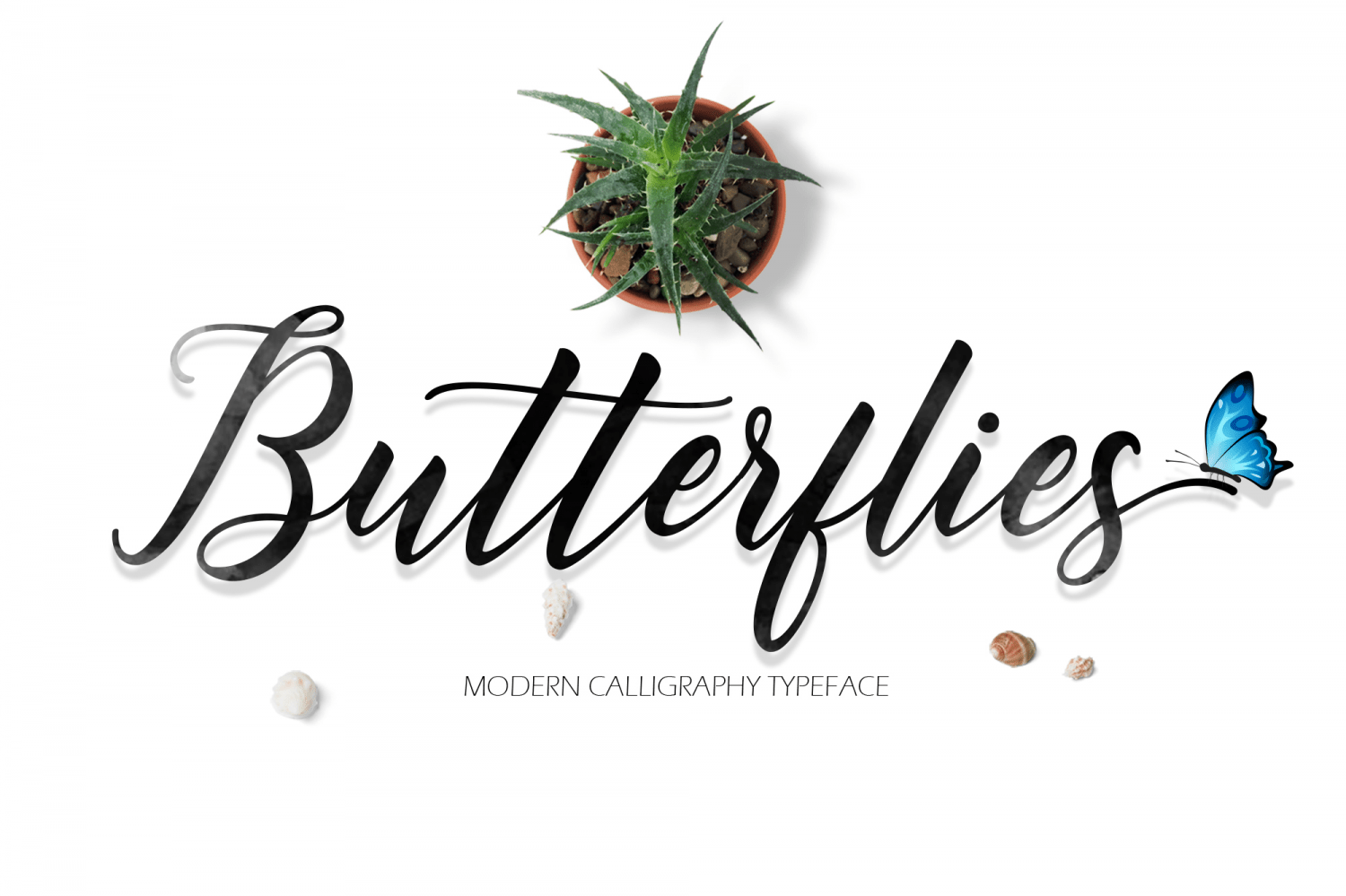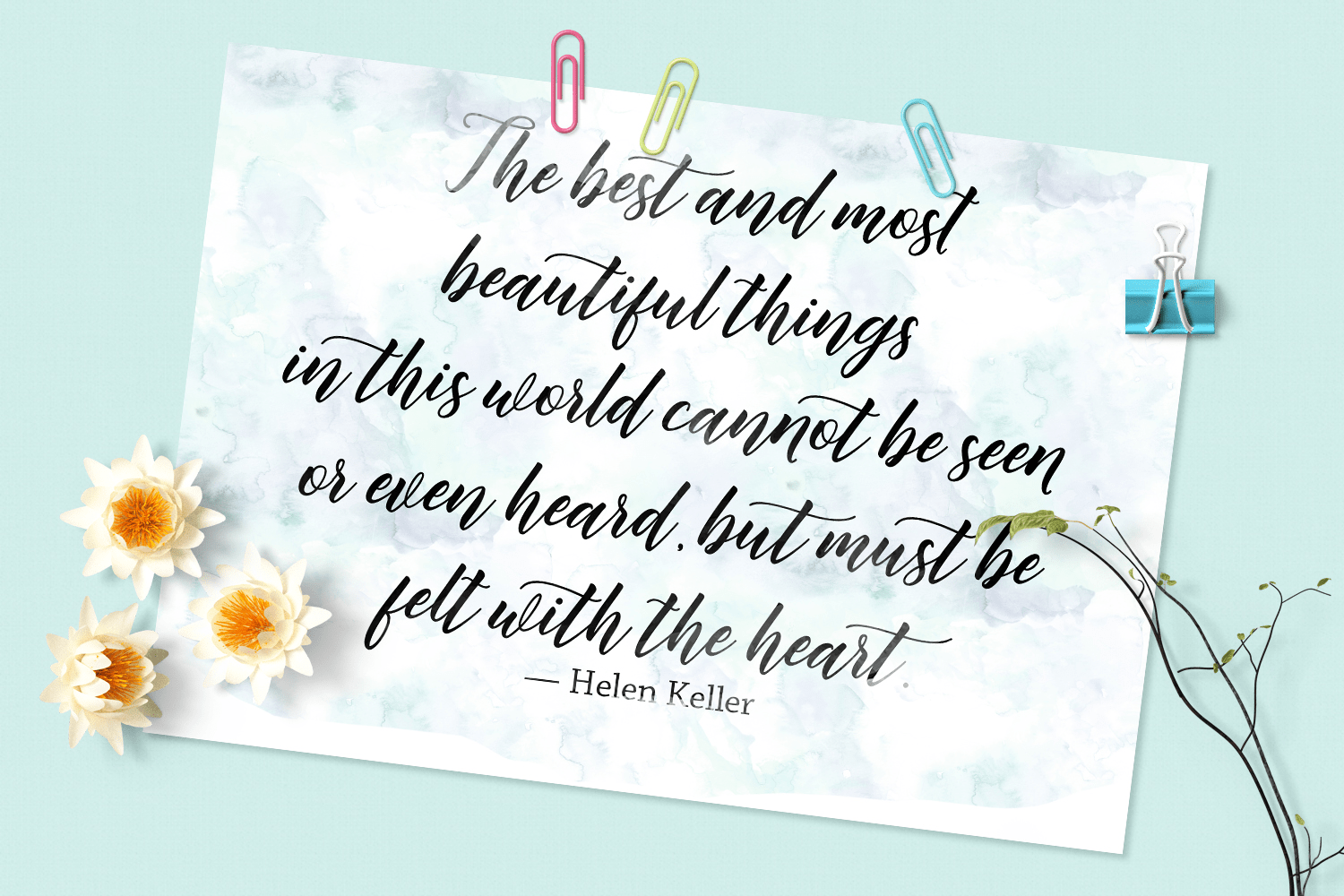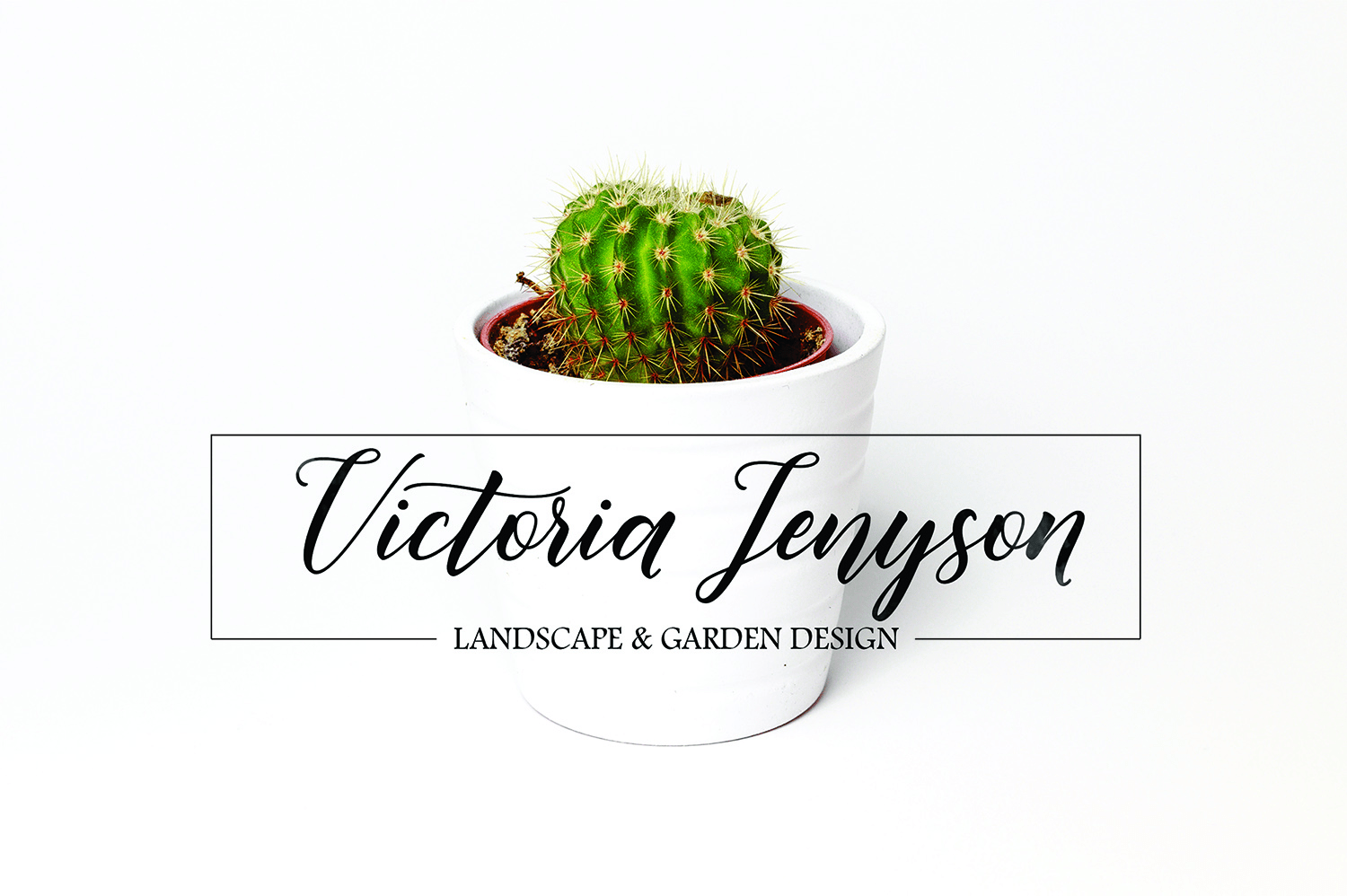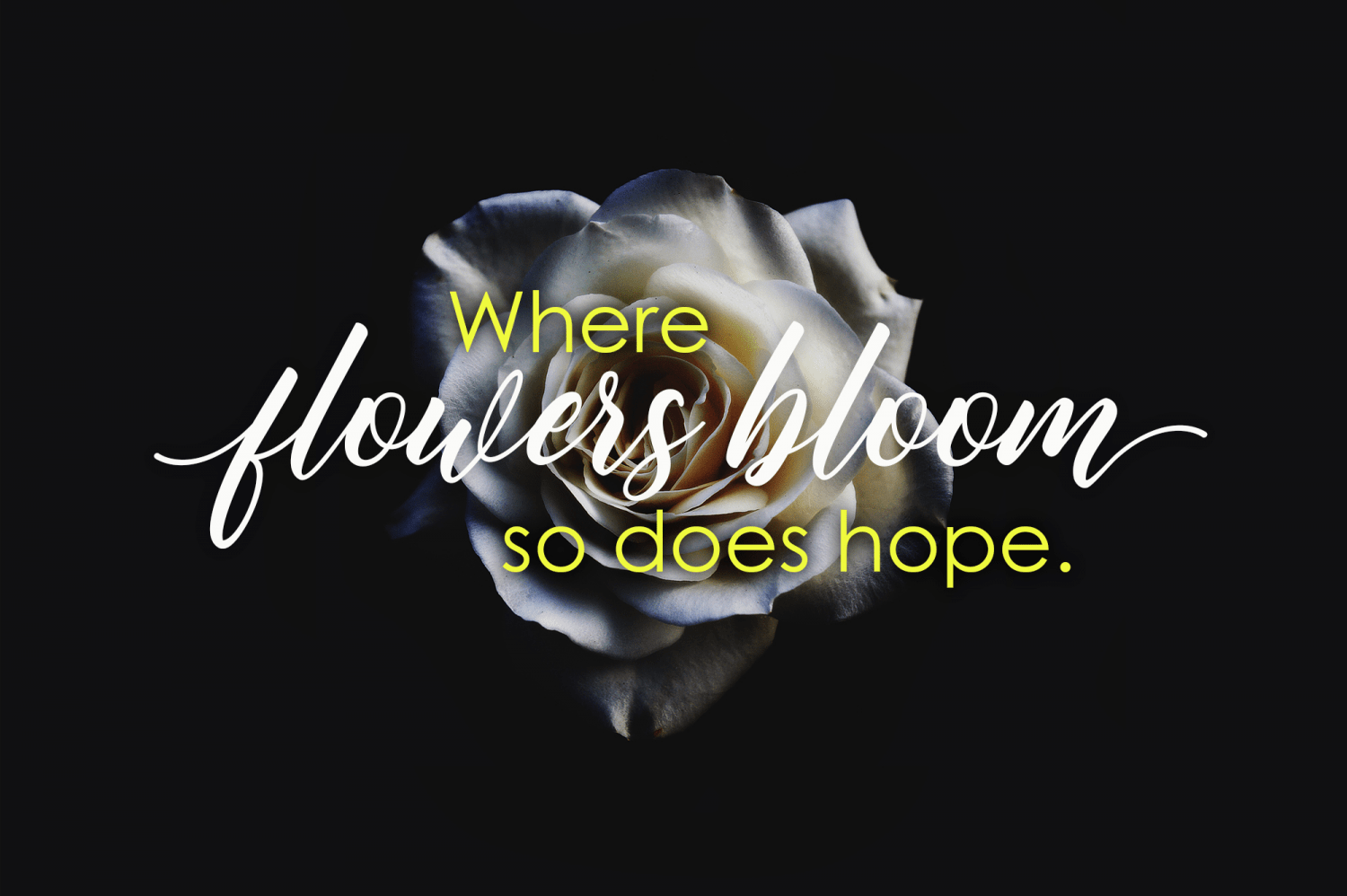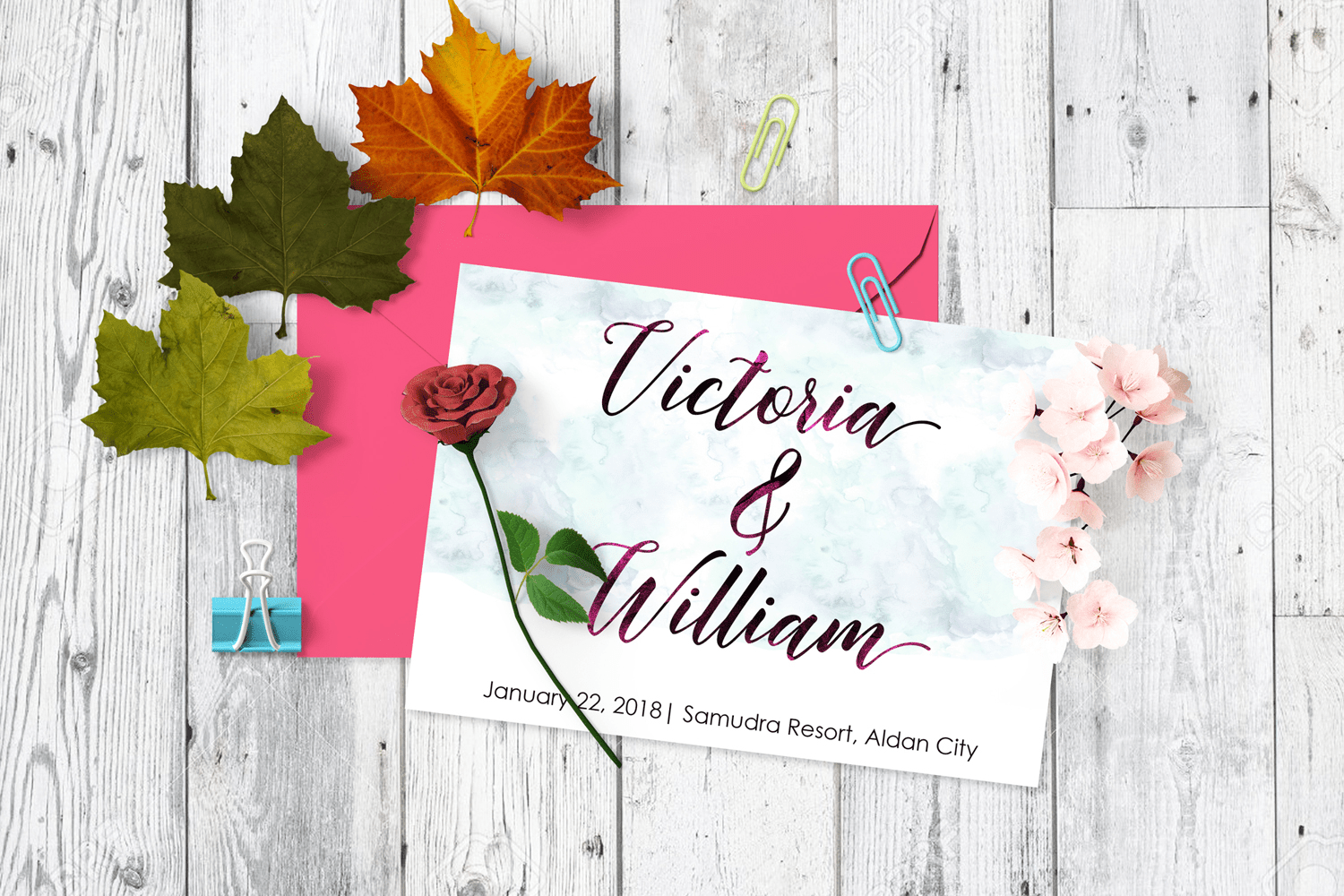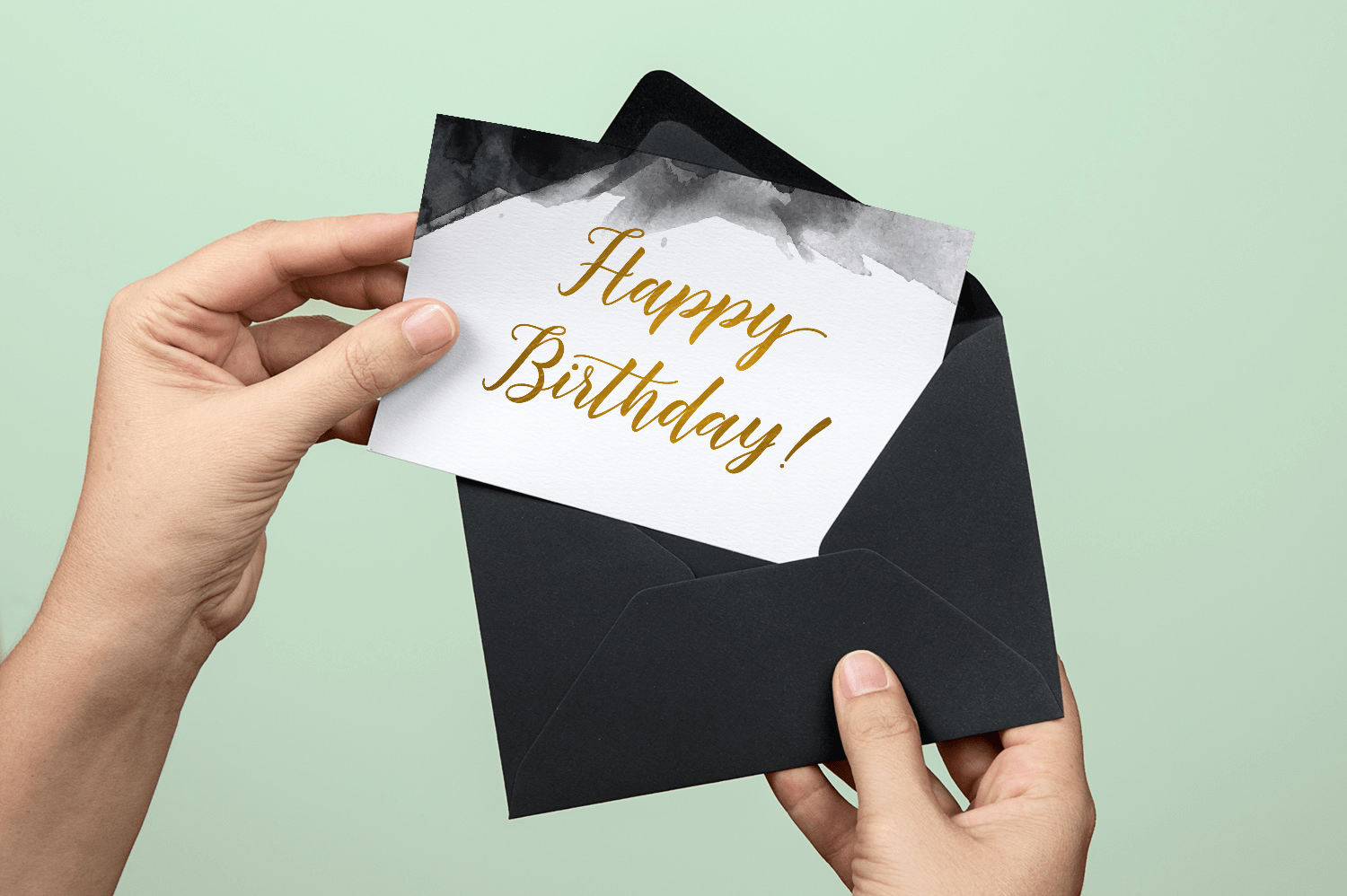
Butterflies Script
Font Family by Fargun Studio
Butterflies Script - a new fresh & modern script with a handmade calligraphy style, decorative characters and a dancing baseline! So beautiful on invitation like greeting cards, branding materials, business cards, quotes, posters, and more design concept!